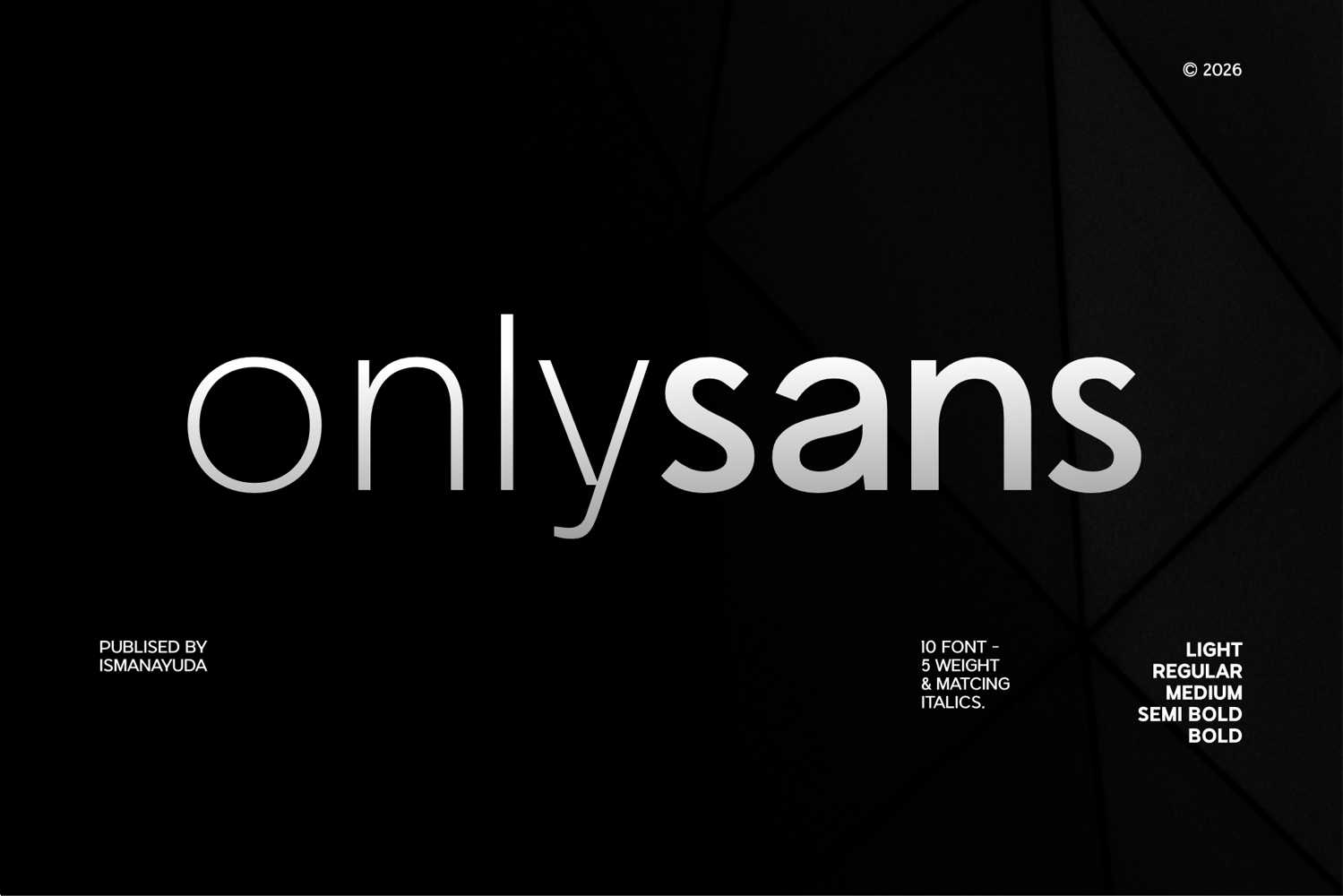
Onlysans
Onlysans is a modern, geometric sans-serif typeface designed with a focus on clarity and versatility. It features a minimalist aesthetic with clean lines and balanced proportions, making it highly legible for both display and body text.
With its diverse range of 10 fonts—spanning 5 weights from Light to Bold with matching italics—Onlysans offers a professional and contemporary feel. Its neutral yet sophisticated design is perfect for branding, digital interfaces, and high-end editorial layouts.